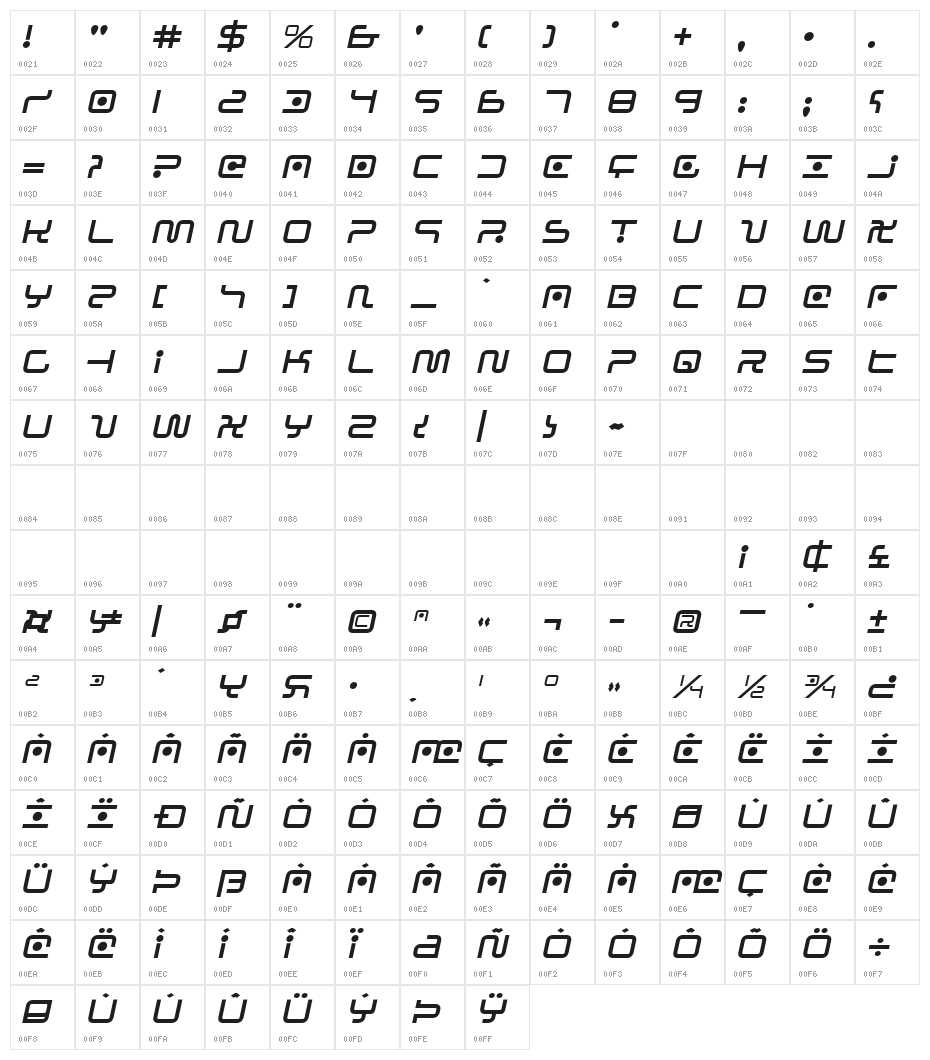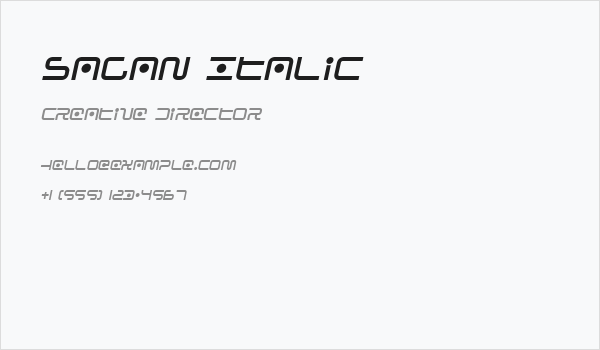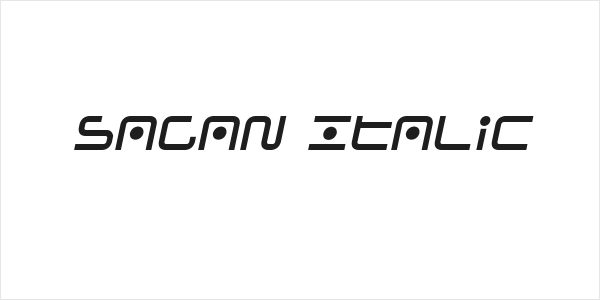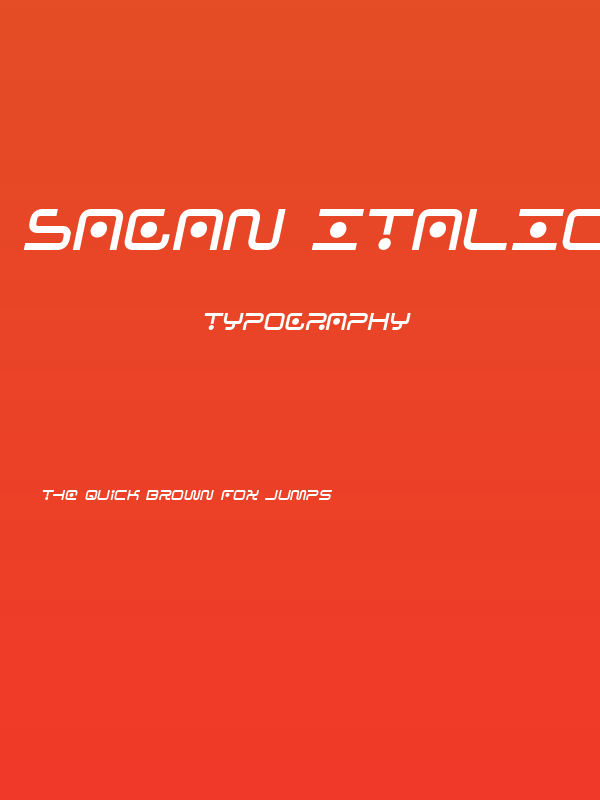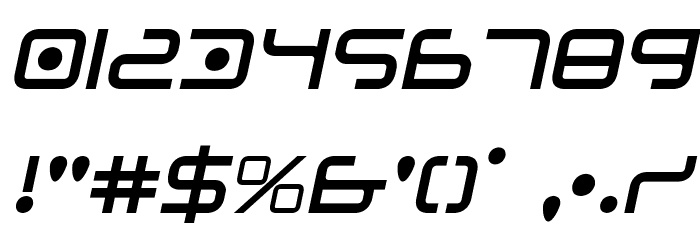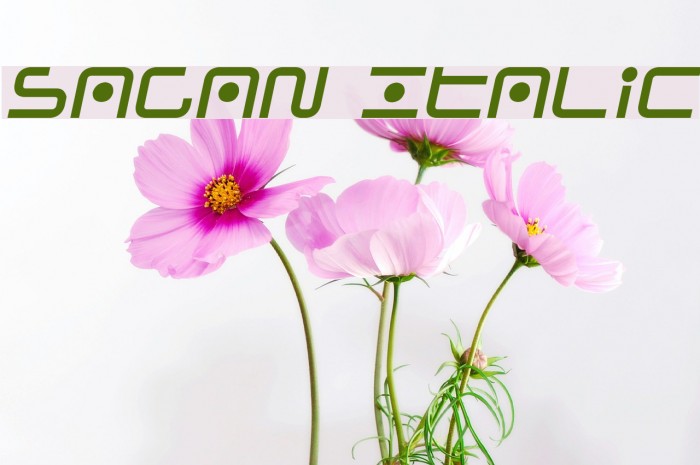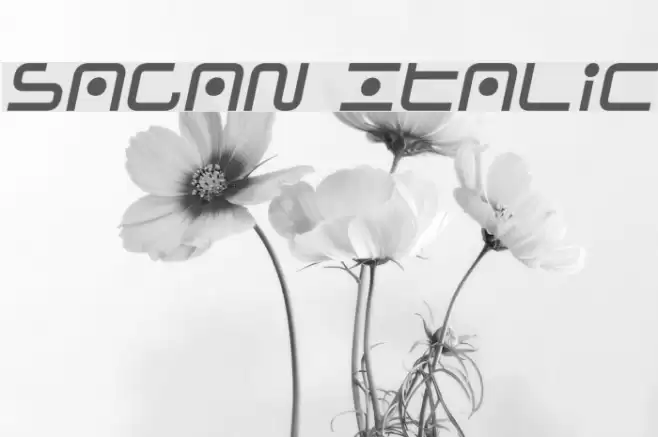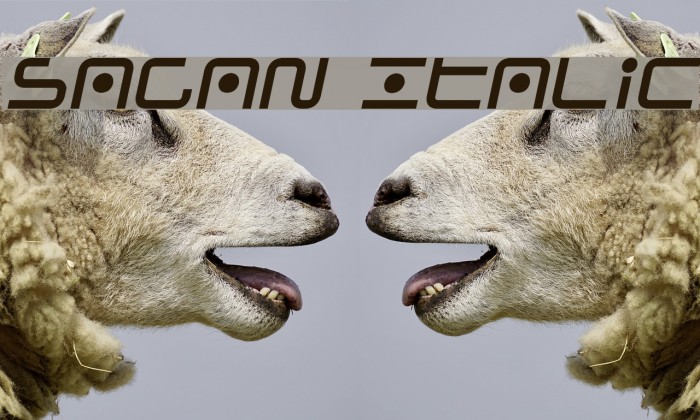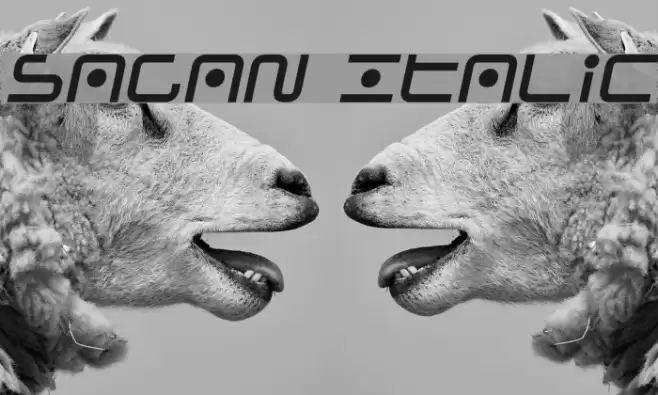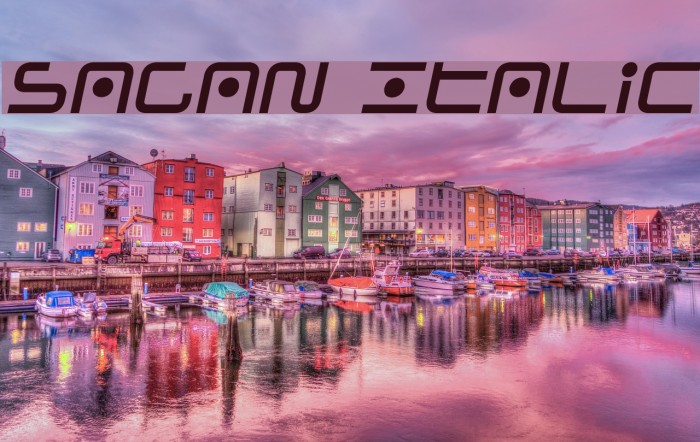
Sagan Italic Font
Sagan Italic Description
This font features a futuristic and sleek design, characterized by its geometric shapes and smooth curves. The letters have a distinct italic slant, giving them a dynamic and forward-moving appearance. The uppercase and lowercase characters maintain a consistent style, with rounded edges and a modern aesthetic. The numerals and special characters are designed to complement the alphabet, featuring similar rounded and geometric elements. This font's unique style makes it suitable for projects that require a contemporary and innovative look.
| Overall Style | Futuristic |
| Use Case | Logos, Headlines, Digital Interfaces |
| Proposed Projects | Ideal for technology branding, sci-fi posters, modern logos, and digital interfaces. |